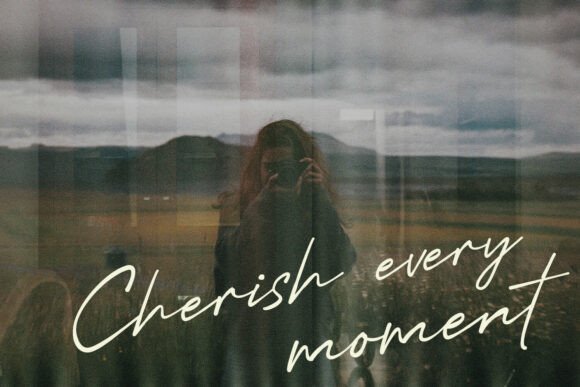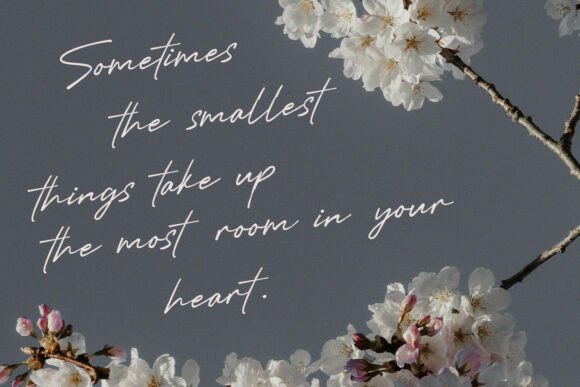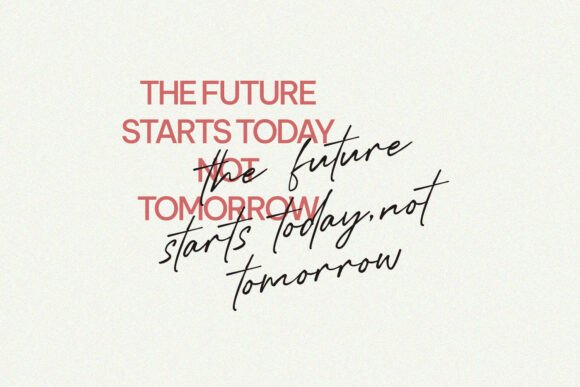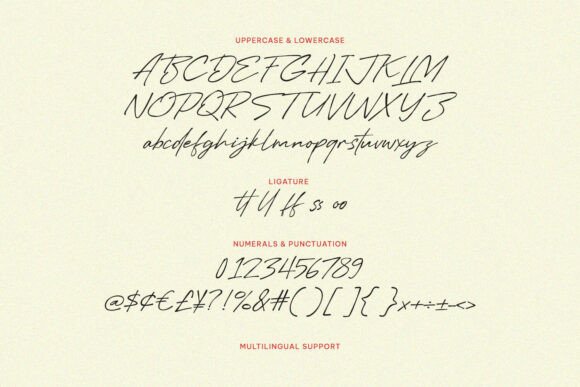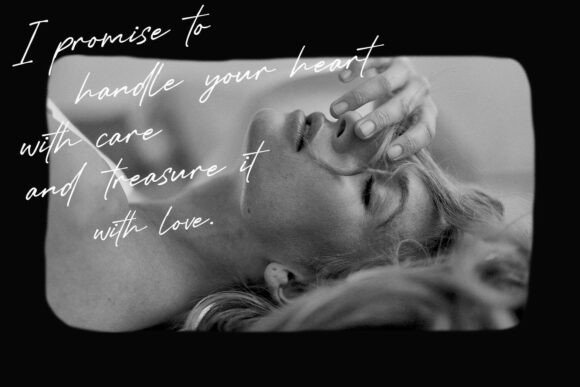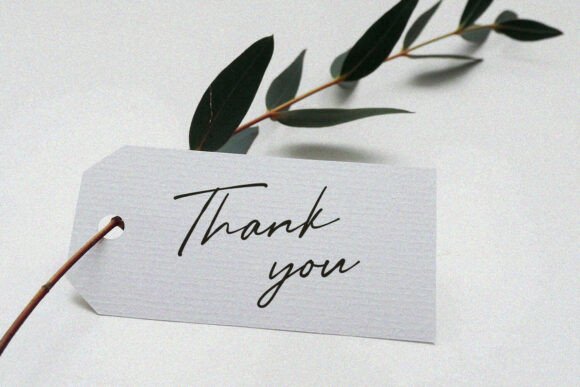
Introduction to Mustineos Kedisyom Font
Mustineos Kedisyom is a stunning, free-flowing script font that embodies chic femininity and effortless style, perfect for contemporary, high-fashion branding.
This unique handwritten typeface captures the organic speed of a brush script, featuring quick, stylish strokes and a naturally slanted, confident baseline The Mustineos Kedisyom font is the ultimate choice for designing signature logos, sophisticated social media graphics, elegant merchandise, and upscale lifestyle packaging.